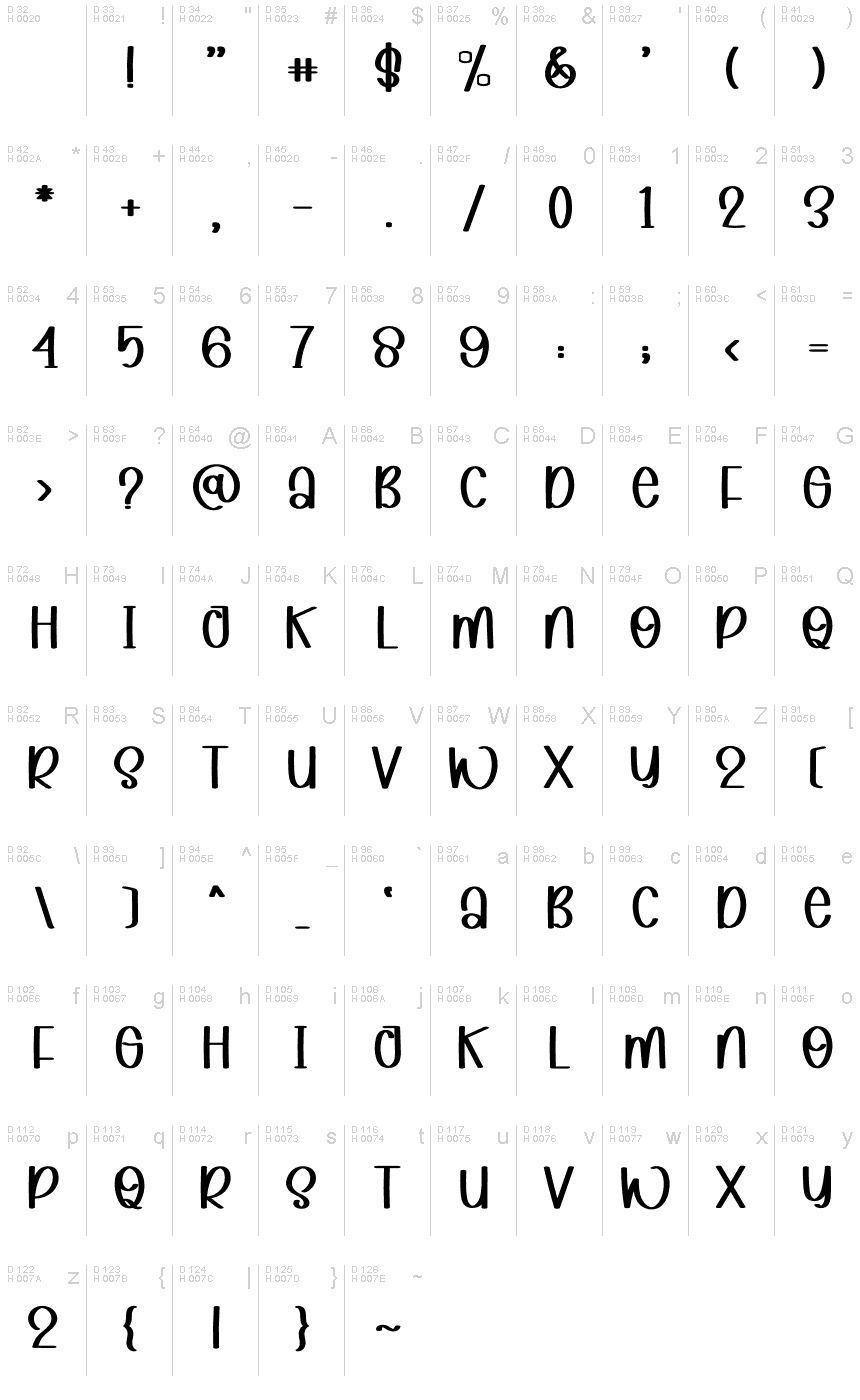
Raight House
Raight House, a charming semi-light font designed by Inermedia Studio, brings an endearing touch to any project.
Its cute handwritten style adds a playful and whimsical feel, perfect for children's books, greeting cards, and invitations. With its gentle strokes and delightful curves, Raight House evokes a sense of innocence and warmth.
Whether used in digital designs or printed materials, this font adds a touch of loveliness to any creative endeavor.